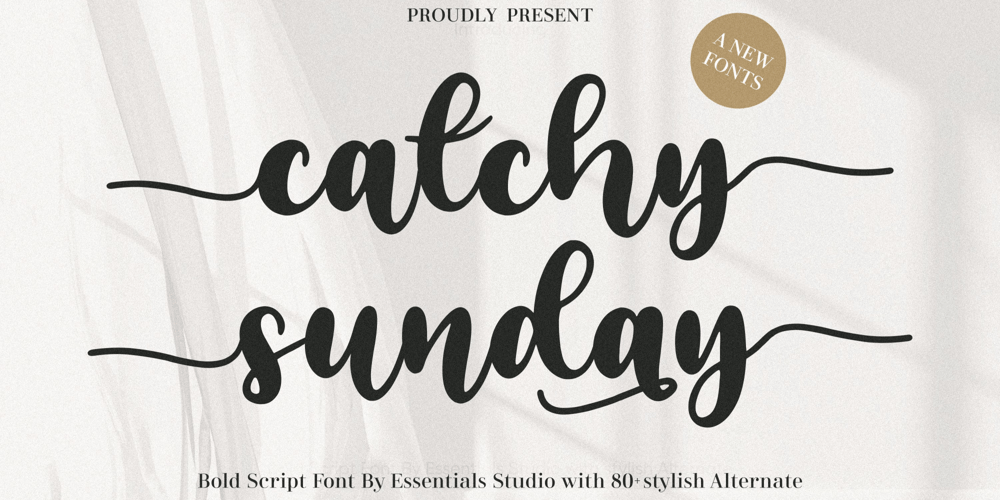
Catchy Sunday
Catchy Sunday font
Catchy Sunday Font Family was designed by Annas Rifky Anhar and published by Essentials Studio. Catchy Sunday contains 1 styles and family package options. Catchy Sunday is a stylish and elegant handwritten font. It looks stunning on wedding invitations, thank you cards, quotes, greeting cards, logos, business cards, and any other design that needs a handwritten touch